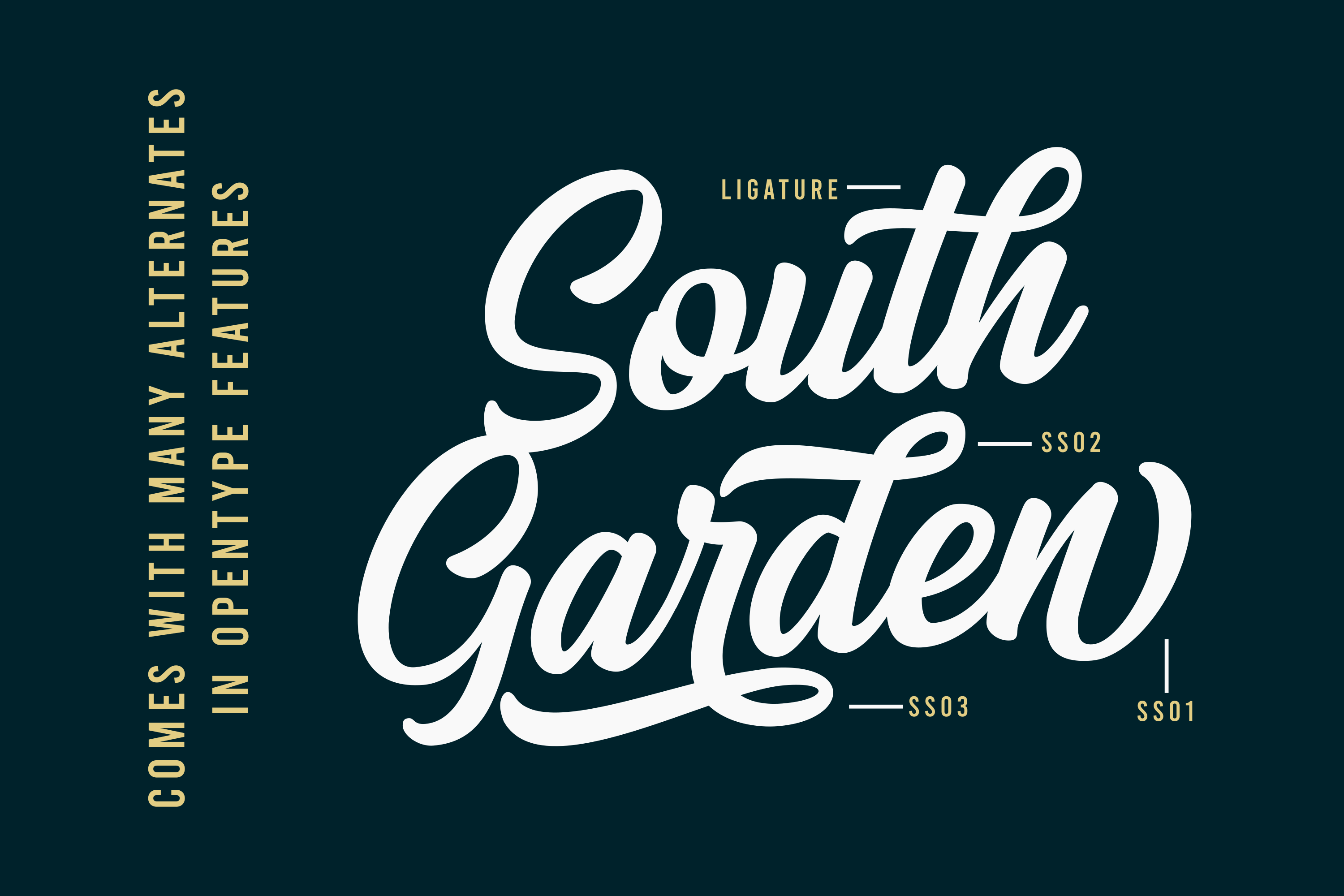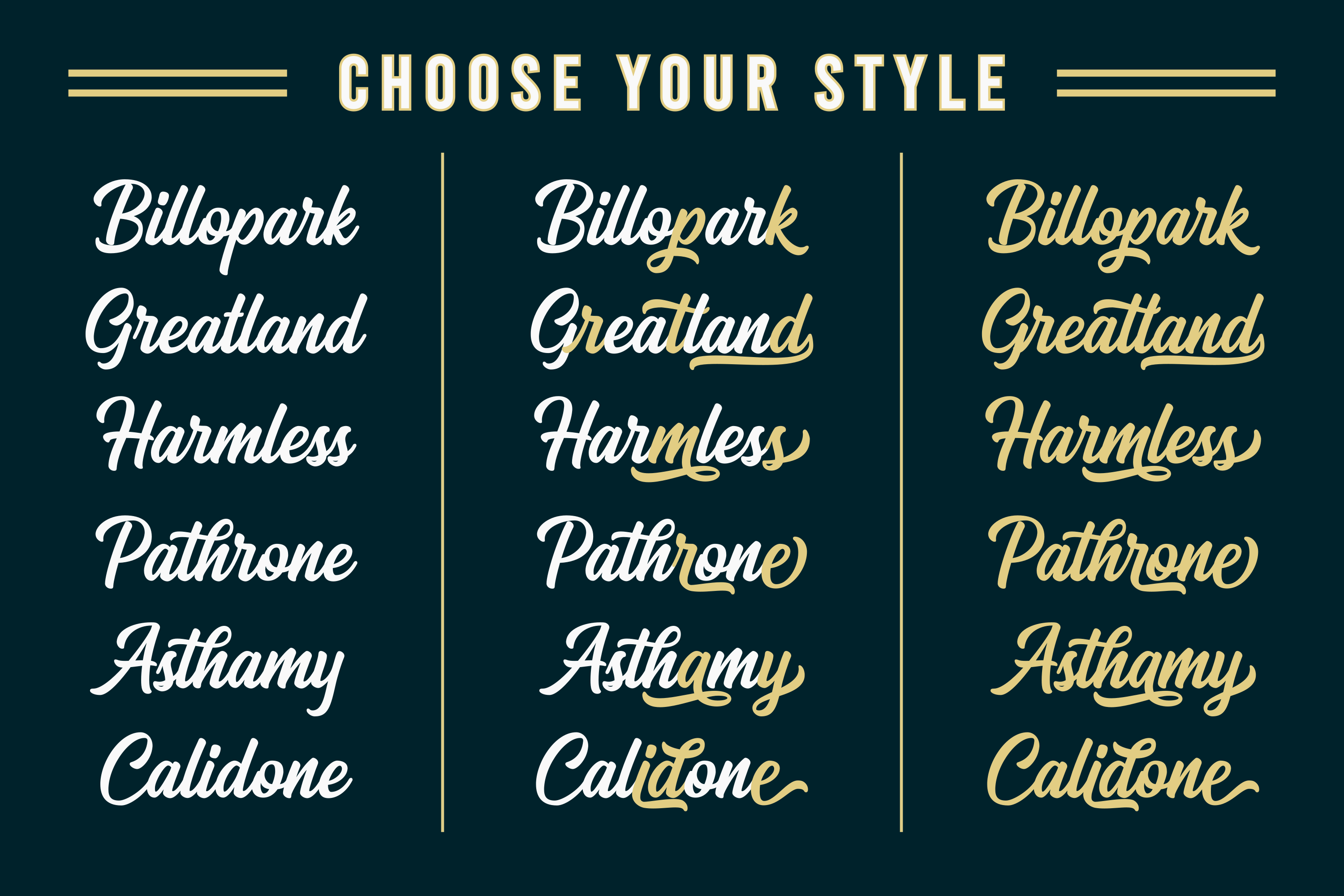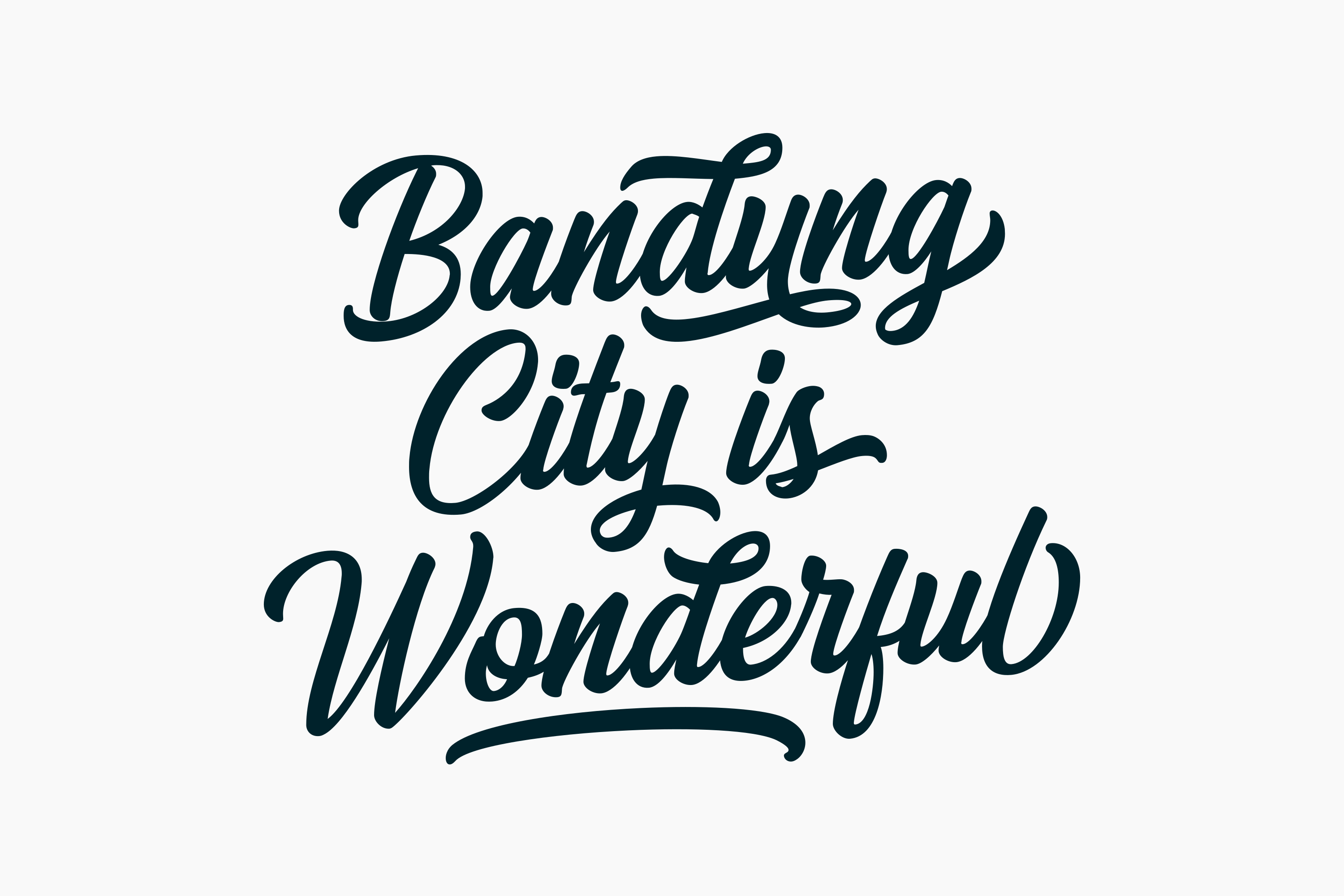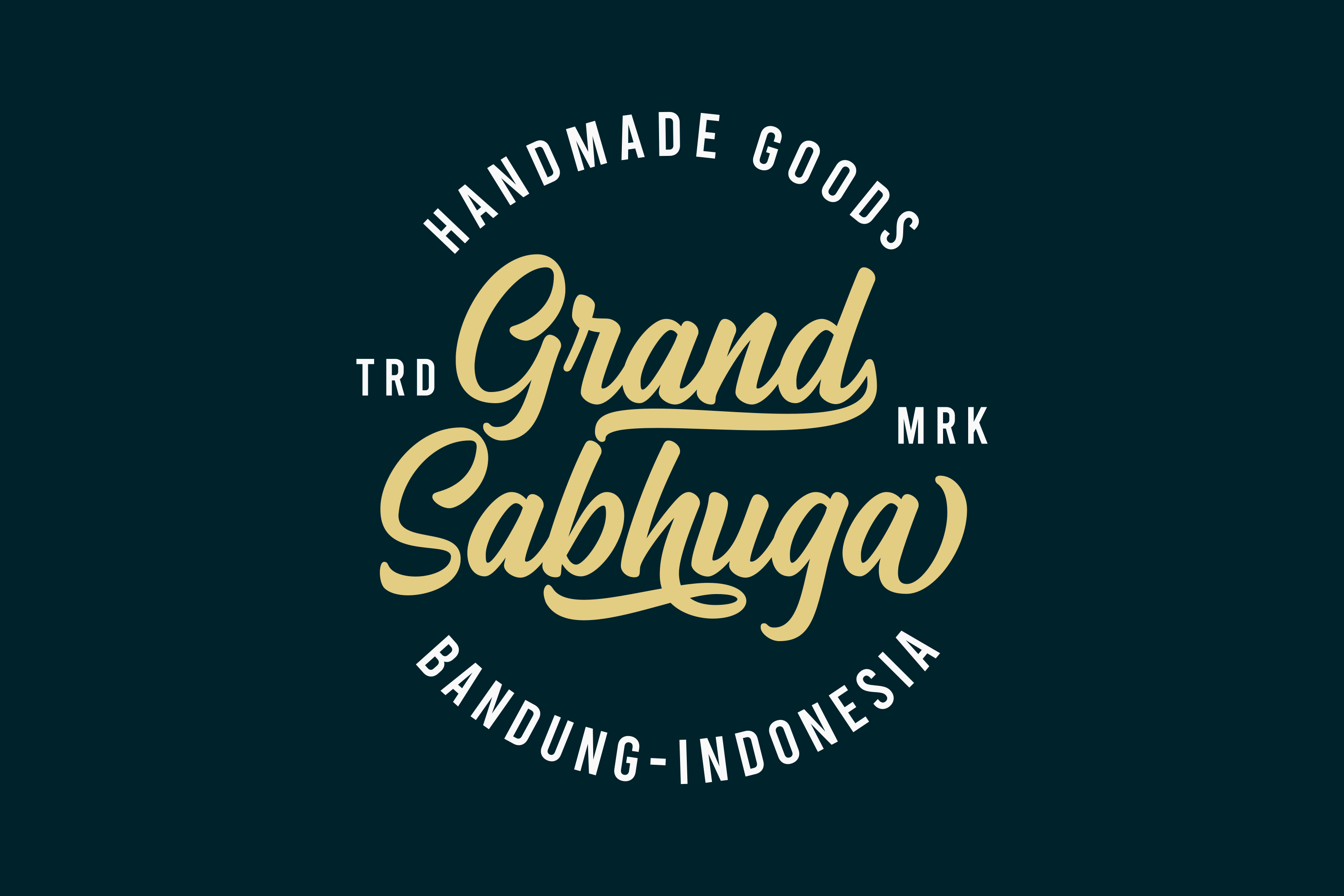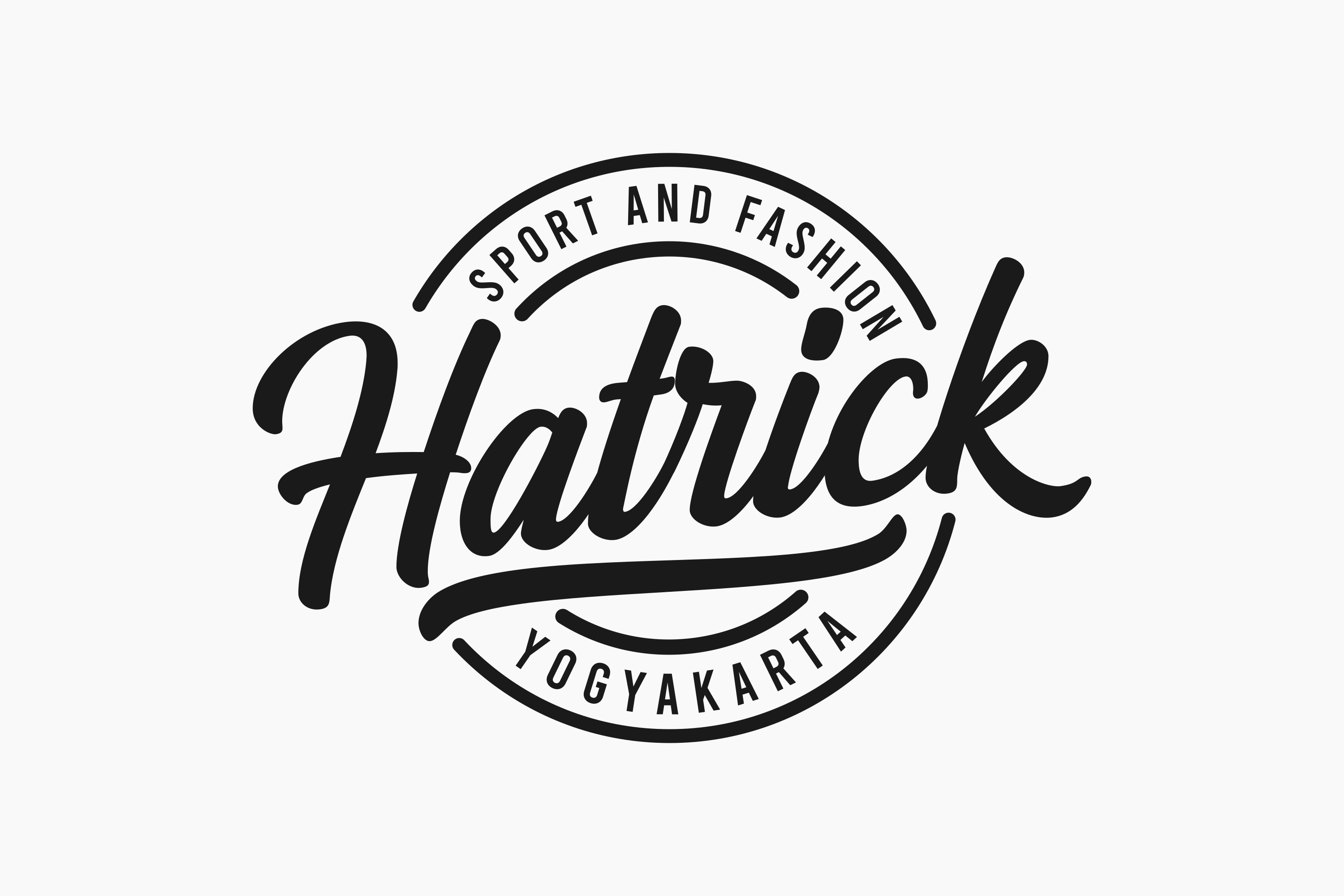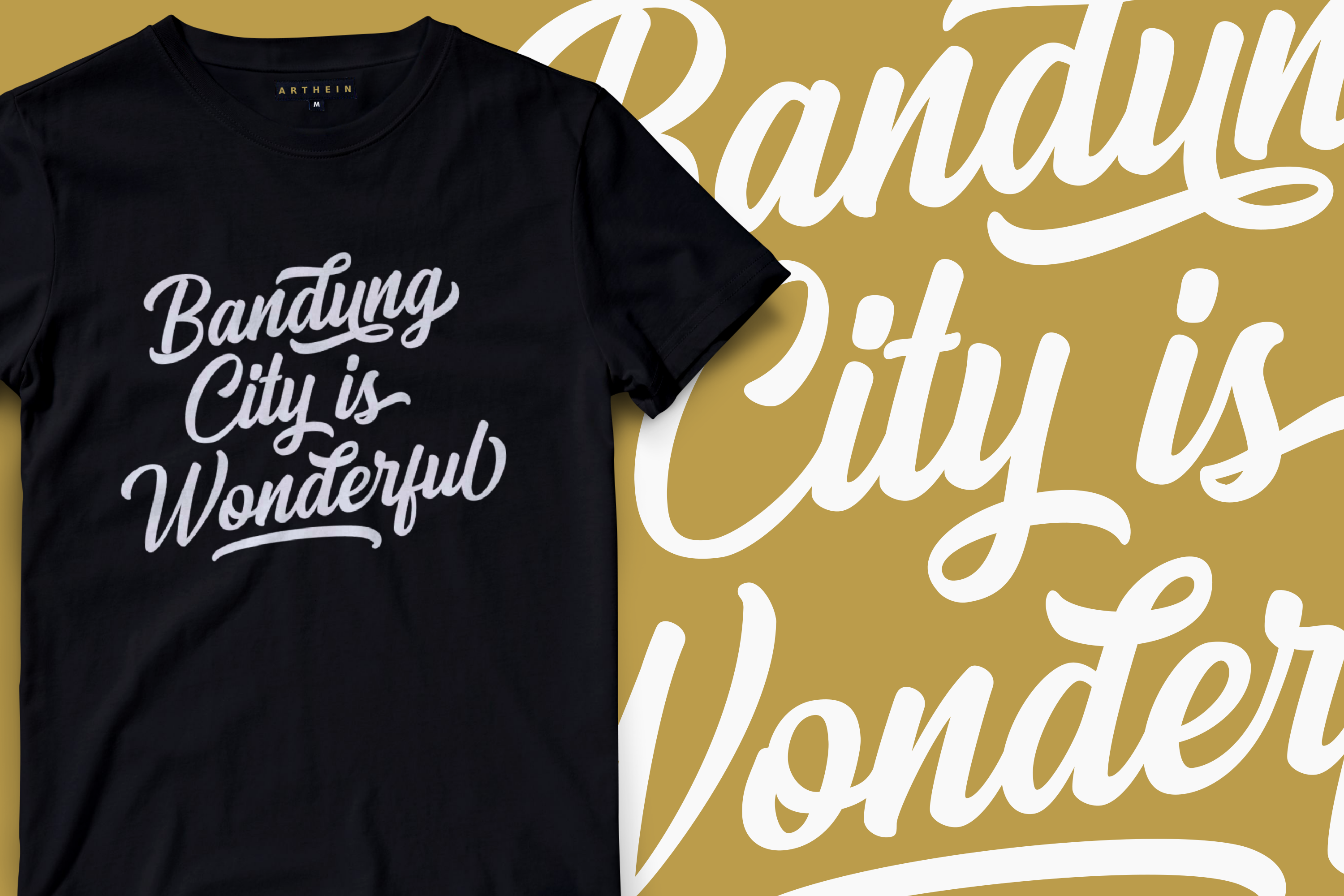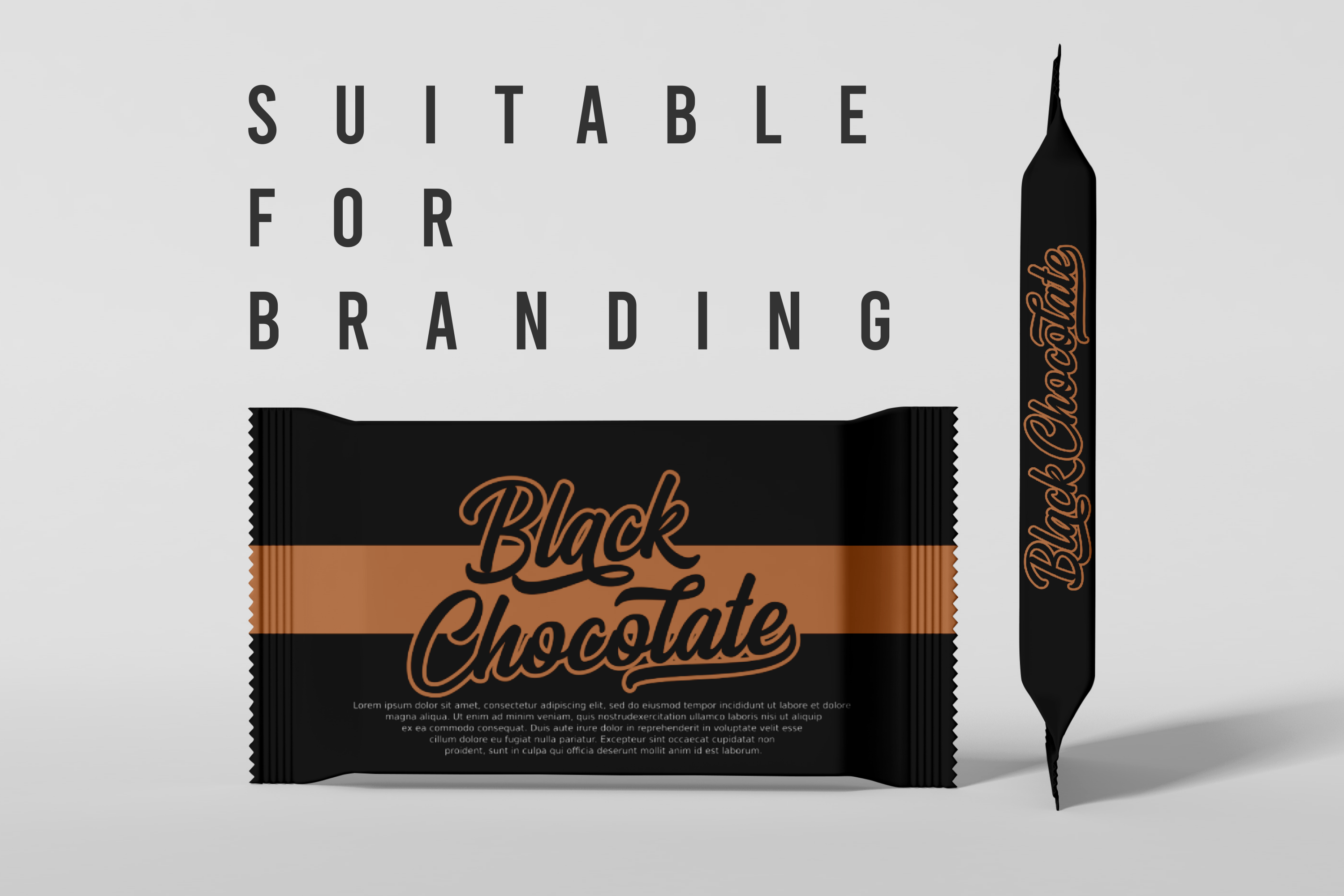
Arthein - Bold Script Font
Arthein is a bold script typeface with an authentic hand-lettering touch. Its iconic ligatures give your designs a strong, crafted, and memorable look.
Arthein is a bold script typeface with an authentic hand-lettering touch. Its iconic ligatures give your designs a strong, crafted, and memorable look. It is perfect for logos, headlines, packaging, apparel designs, posters, labels, and other display projects.
Arthein - Bold Script Font
Logos, headlines, packaging, apparel designs, posters, labels, and other display projects